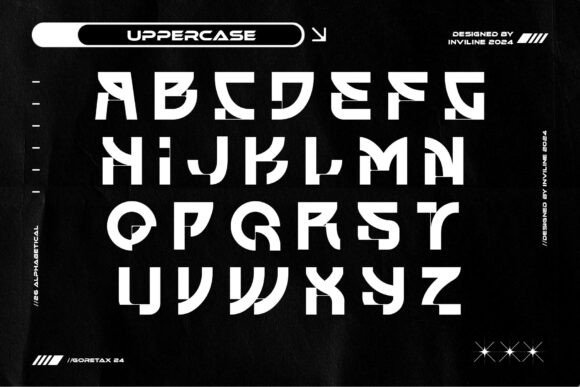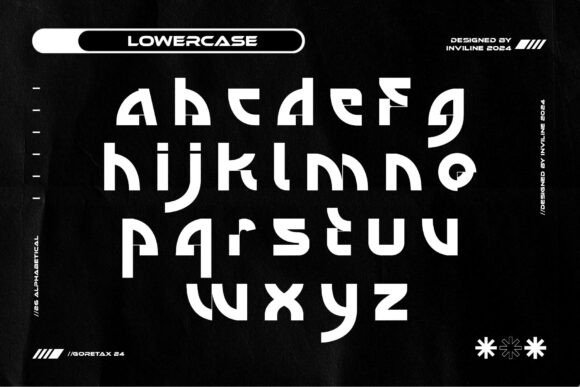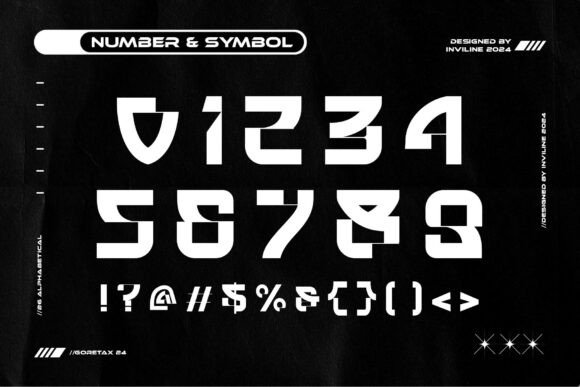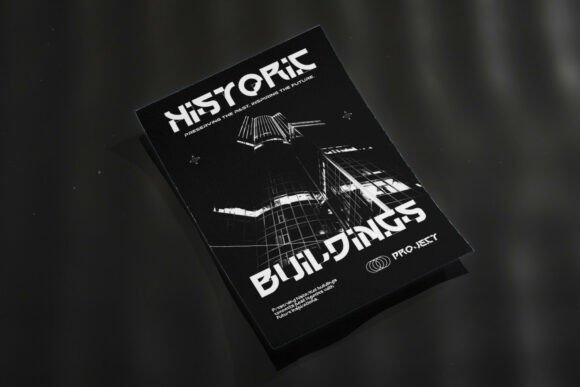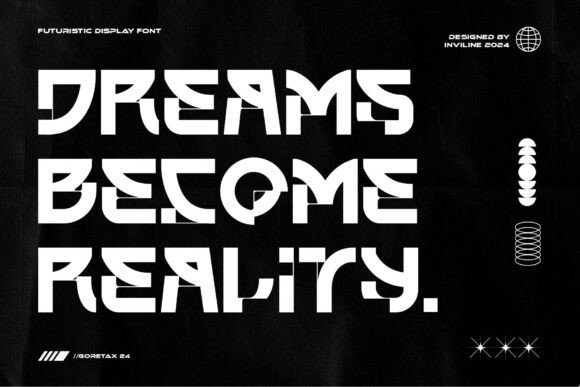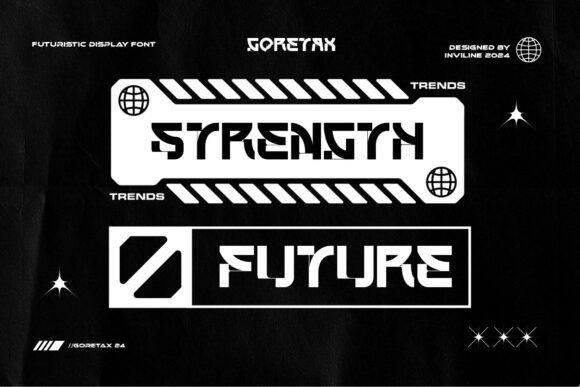
The Future of Typography: Unlocking the Potential of Goretax Font
You’ve spent hours pouring over your latest design project, trying to bring a sense of innovation and futurism to the table. But sometimes, no matter how hard you try, you just can’t seem to break free from the constraints of traditional typography. That’s where the Goretax Font comes in – a bold, experimental display font designed to push the boundaries of what’s possible.
This futuristic font is perfect for creatives who want to add a touch of sci-fi flair to their work. With its deconstructed shapes and sharp modular forms, the Goretax Font is ideal for a wide range of applications, from tech branding and abstract poster design to digital interfaces and more. By incorporating this font into your design arsenal, you’ll be able to create bold, eye-catching visuals that are sure to turn heads.
Goretax Font Key Features
- Font Family: Goretax
- Unique Characteristic: Goretax Font features a unique blend of gothic and modern elements, creating a distinctive and striking visual effect.
Goretax Font Review
Goretax Font, a recent addition to the world of sans-serif fonts, has caught my attention. While it may not be perfect, it has some redeeming qualities that make it worth exploring.
- Unique aesthetic: Goretax Font boasts a distinct, futuristic design that sets it apart from more traditional sans-serif fonts.
- Clear readability: Despite its unusual shape, the font remains highly legible, making it suitable for a wide range of applications.
- High-resolution compatibility: Goretax Font scales well, maintaining its crisp appearance even at smaller sizes.
- Character set limitations: The font’s character set is not as extensive as some other popular fonts, which may cause issues for users requiring non-standard characters.
- Lack of stylistic variations: Unlike some other fonts, Goretax Font does not offer a range of stylistic alternatives, which may limit its versatility.
- Dependence on digital platforms: As a relatively new font, Goretax may not be as widely supported by older software or hardware.
Goretax Font is an intriguing addition to the world of typography. While it may not be perfect, its unique design and clear readability make it worth considering for projects where a futuristic aesthetic is desired. However, its limitations, such as character set restrictions and lack of stylistic variations, may limit its usability in certain contexts.
Tips for Getting the Most Out of Goretax Font
To get the most out of Goretax Font, try the following:
- Use Goretax Font for titles and headings to create a bold and striking design.
- Combine Goretax Font with other fonts for a unique and creative look.
- Experiment with different font sizes and colors to achieve the desired effect.
Goretax Font is commonly used for:
- Graphic design and branding. Alternatives to Goretax Font
- Choose a dark, neon-lit background to contrast with the bold, futuristic lines of the font.
- Experiment with layering and blending Goretax Font with other digital art elements, such as glitch art or circuit board patterns.
- Emphasize the font’s industrial feel by incorporating metallic textures or abstract shapes.
- Pair the font with a bold, high-contrast color scheme to create a striking visual effect.
- Use Goretax Font in combination with other futuristic fonts to create a sense of depth and dimensionality.
- Integrate Goretax Font with 3D modeling or vector graphics to create a truly immersive digital art experience.
- Choose a distressed, gritty texture to give the font a worn, lived-in feel.
Goretax Font Creative Project Ideas
Project 1: Cyberpunk Digital Art
A futuristic digital art piece that showcases the edgy, industrial vibe of the Goretax Font.
To use Goretax Font in this project:
Combining Goretax Font with other design elements:
Project 2: Grunge Music Festival Poster
A high-energy music festival poster that showcases the raw, rebellious spirit of the Goretax Font.
To use Goretax Font in this project:
Combining Goretax Font with other design elements: